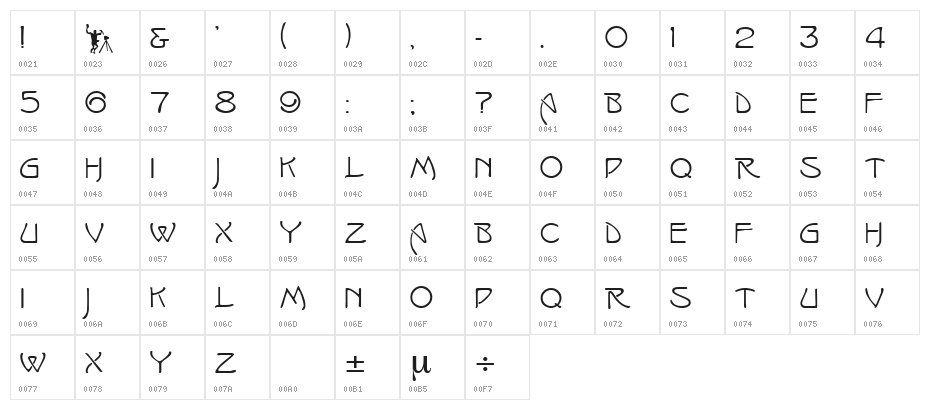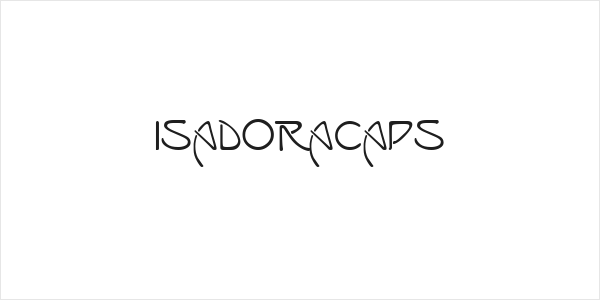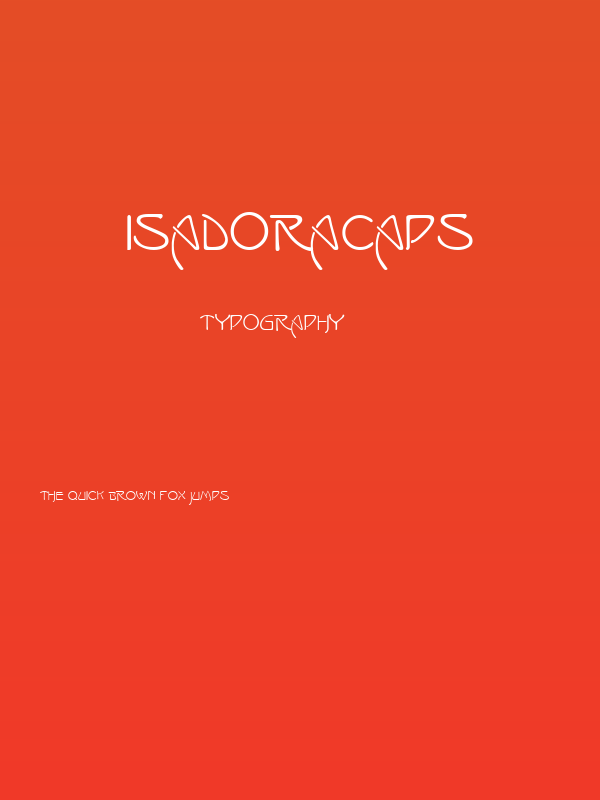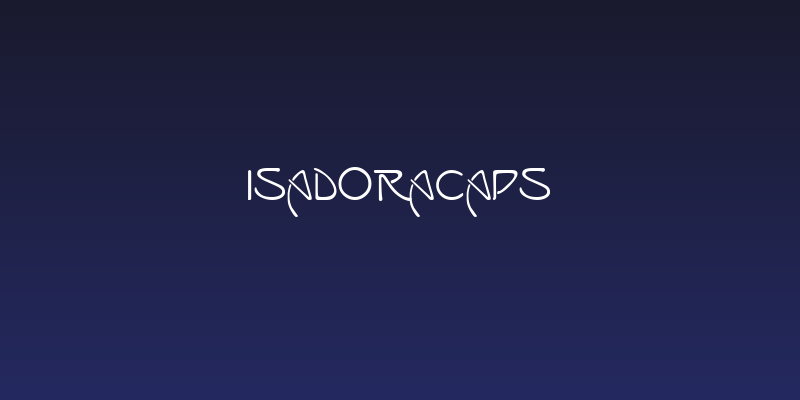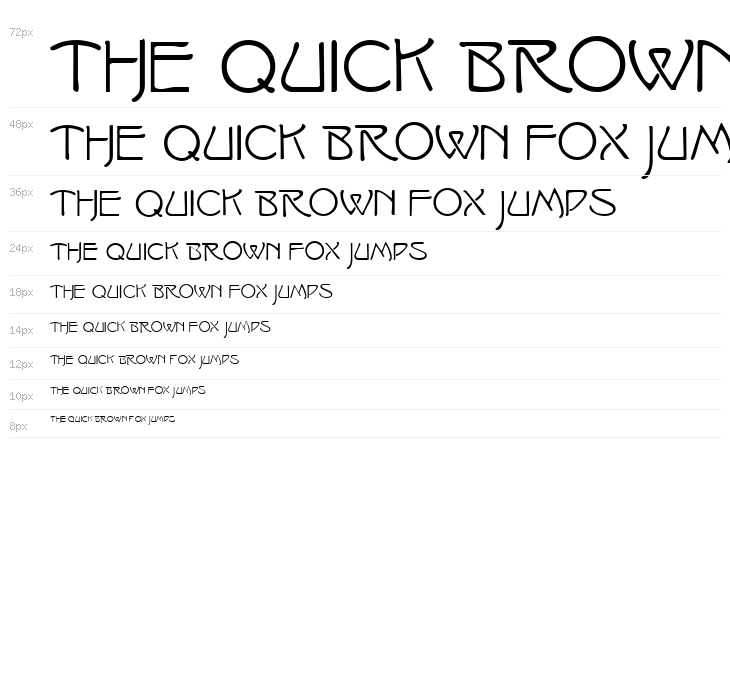
IsadoraCaps Font
IsadoraCaps Description
This font features a unique and artistic design with a modern flair. The characters are crafted with a combination of straight lines and subtle curves, creating an elegant and sophisticated appearance. The uppercase letters have a distinct style, with some characters incorporating elongated strokes and others featuring angular cuts. The numbers are bold and clear, maintaining the font's artistic essence. Special characters are creatively designed, adding to the font's overall aesthetic appeal. This font is perfect for projects that require a touch of creativity and elegance.
| Proposed Projects | Ideal for branding, logos, artistic posters, and creative invitations. |